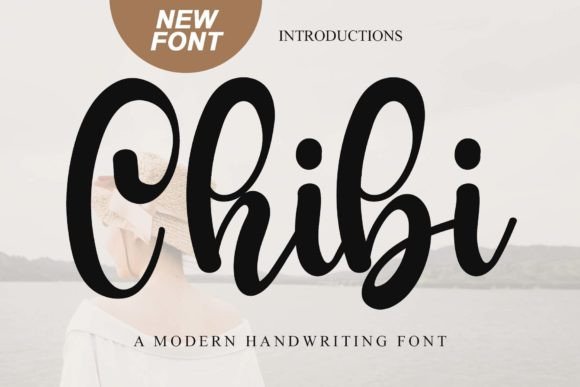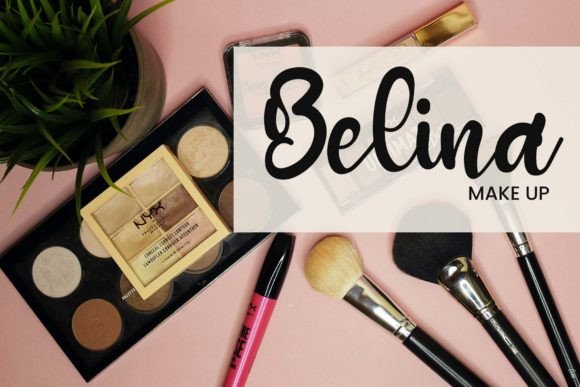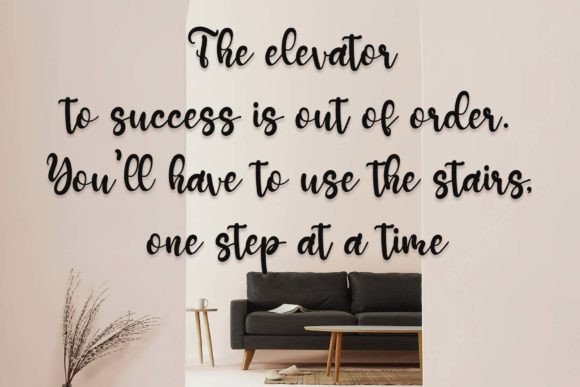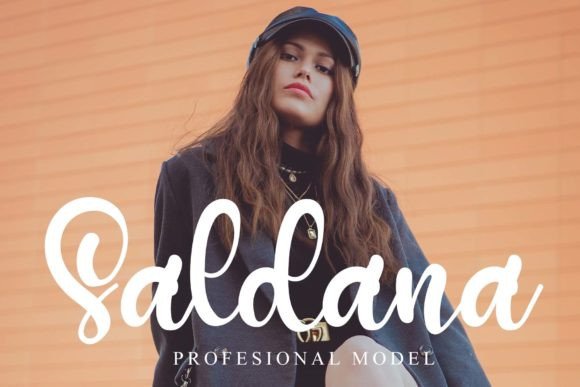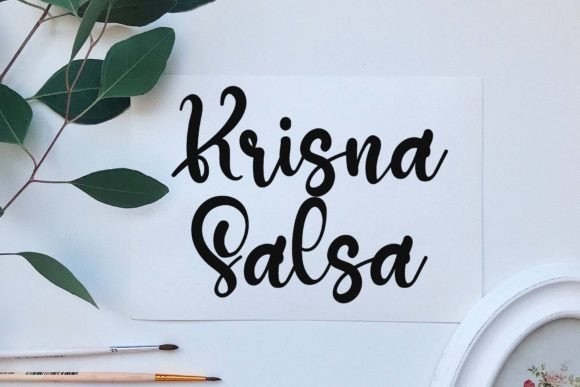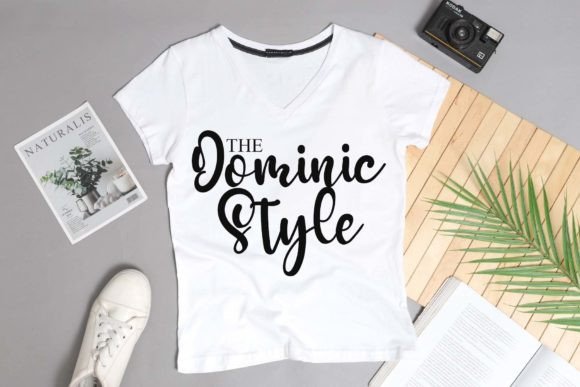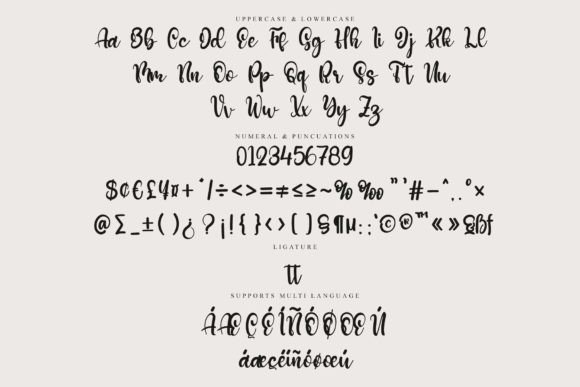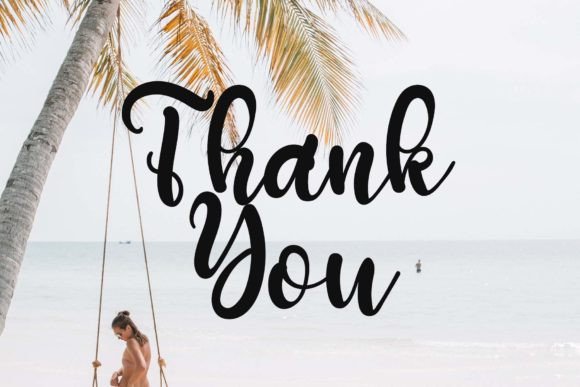
Chibi Font
About Chibi Font
**Chibi Font: A Stylish Handwritten Typeface with Timeless Elegance**
Introducing Chibi, a stylish handwritten font that effortlessly combines contemporary flair with the impeccable form of timeless classic calligraphy. This typeface is designed to enhance the beauty of your projects, offering a balanced and varied style that suits a wide range of design applications. Here’s why Chibi is the perfect choice for your creative endeavors:
**Contemporary Flair:** Chibi’s contemporary atmosphere adds a touch of modernity to your designs, making it suitable for a variety of projects, from digital to print.
**Timeless Classic Calligraphy:** Inspired by classic calligraphy, Chibi’s form exudes timeless elegance, making it a versatile choice for both traditional and modern design needs.
**Impeccable Form:** Chibi is meticulously crafted to ensure impeccable form in every character. Its well-defined and elegant lettering enhances the visual appeal of your text.
**Versatile Usage:** This font’s balanced and varied style makes it incredibly versatile. You can use Chibi for a wide range of design projects, including logos, branding, invitations, greeting cards, websites, posters, and more.
**Elegant Branding:** Elevate your brand with Chibi. Its sophisticated yet approachable style can help your business create a memorable and refined image.
**Invitations and Cards:** Craft elegant invitations, greeting cards, and announcements that convey a sense of timeless charm and sophistication.
**Digital and Print:** Whether you’re designing for digital platforms or print materials, Chibi adapts seamlessly to both mediums, ensuring your message is consistently stylish.
**Website Beauty:** Enhance your website’s aesthetics by incorporating Chibi into your typography, creating an engaging and visually appealing user experience.
**Logo Grace:** Make your logo stand out with Chibi’s elegant lettering, giving your brand a distinctive and memorable identity.
**Signage Elegance:** Create eye-catching signage for events, storefronts, or exhibitions using Chibi to capture attention and convey sophistication.
**Classic Editorial Design:** If you’re working on editorial projects such as magazines or books, Chibi’s timeless form can bring a touch of classic elegance to your layouts.
**Versatile for All Ages:** Chibi’s style is versatile and appeals to a broad audience, making it an excellent choice for projects targeting various age groups.
**Create Impactful Designs:** Chibi’s stylish and timeless elegance helps you create impactful designs that leave a lasting impression on your audience.
**Design Freedom:** Incorporate Chibi into your creative process and experience the freedom it provides to experiment with elegant typography.
**Visual Storytelling:** Use Chibi to enhance your visual storytelling, turning narratives into captivating and engaging experiences.
**Elevate Your Creations:** Elevate your design projects to new heights by incorporating the timeless elegance and contemporary flair of Chibi.
**Discover Chibi:** Explore the possibilities of Chibi and discover how it can transform your projects into visually stunning creations that exude elegance and charm.
**Upgrade Your Design Toolkit:** Add Chibi to your design toolkit and unlock a world of creative potential with this stylish handwritten font.
**Design with Confidence:** Design with confidence using Chibi and let its combination of contemporary style and timeless elegance elevate your creative work to new levels of sophistication and beauty.